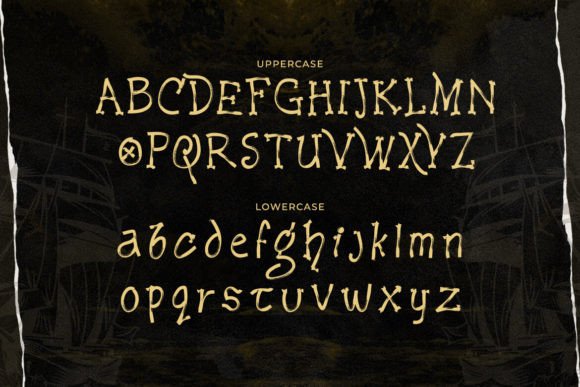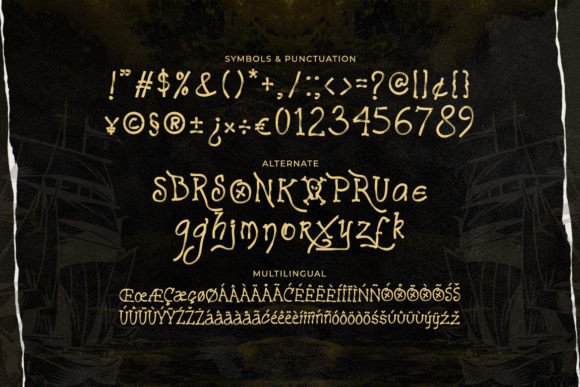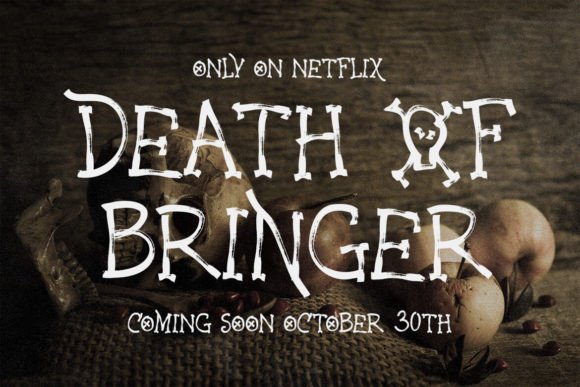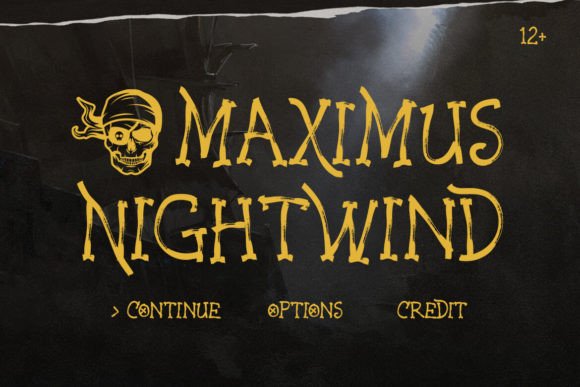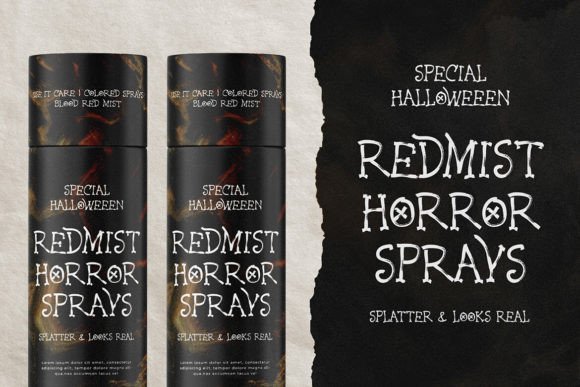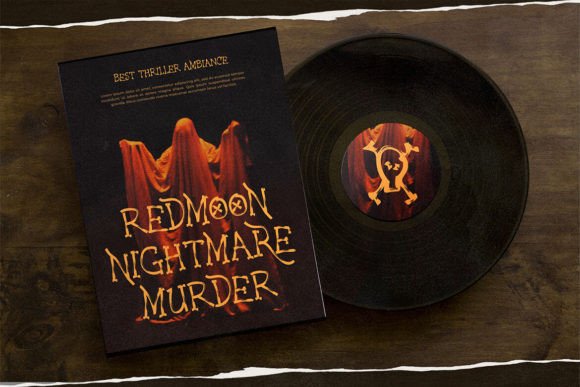
Introduction to Pirate Master Font
Ahoy, matey.
Set sail with โPirate Masterโ โ a daring pirate display font that captures the spirit of high seas adventures Embrace the fearless charm of โPirate Masterโ as it transforms your projects into thrilling journeys.
Key Features of Pirate Master Font